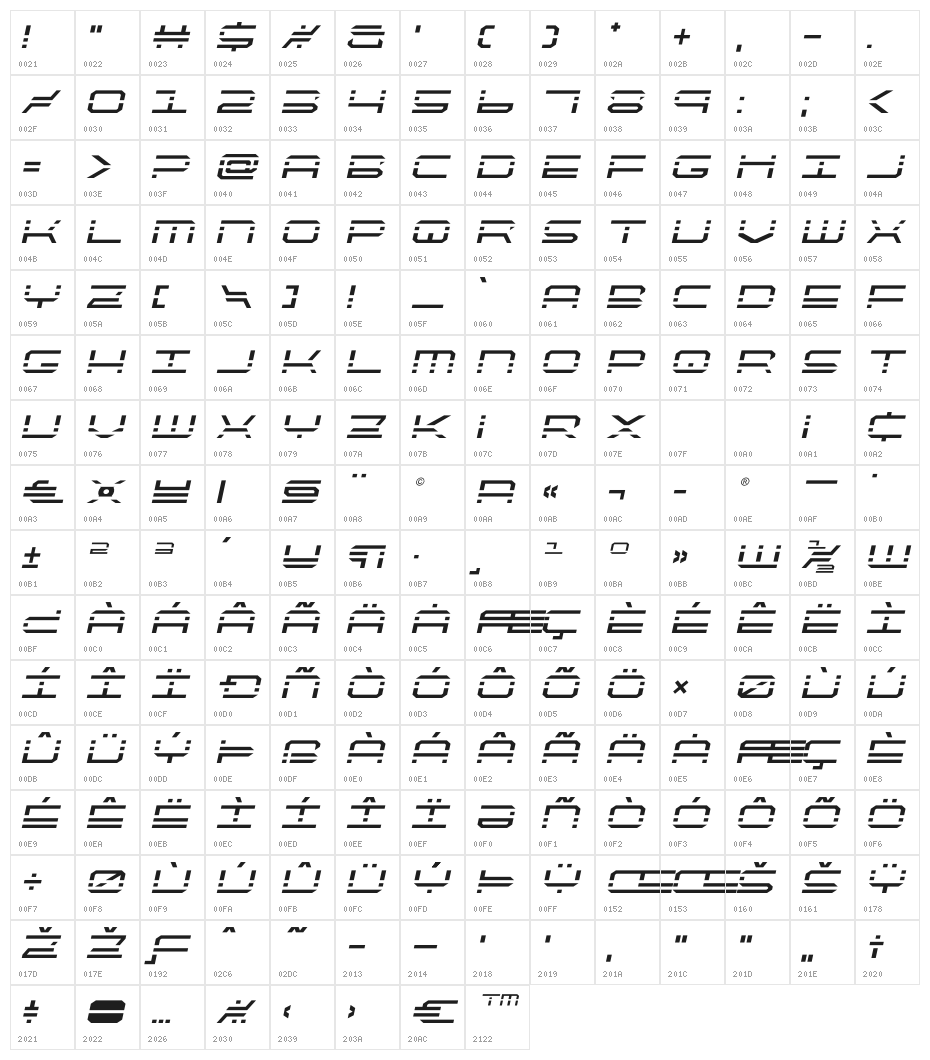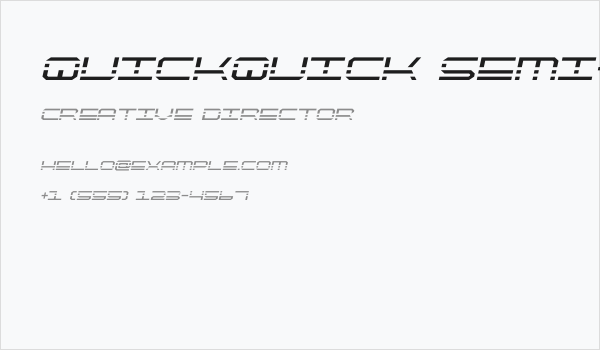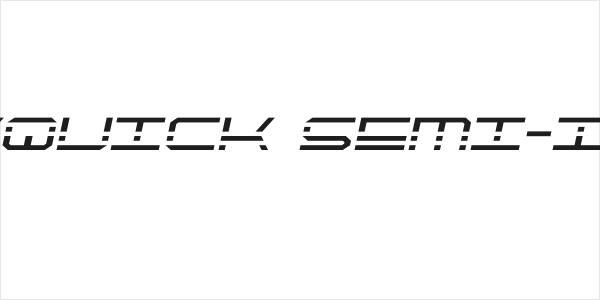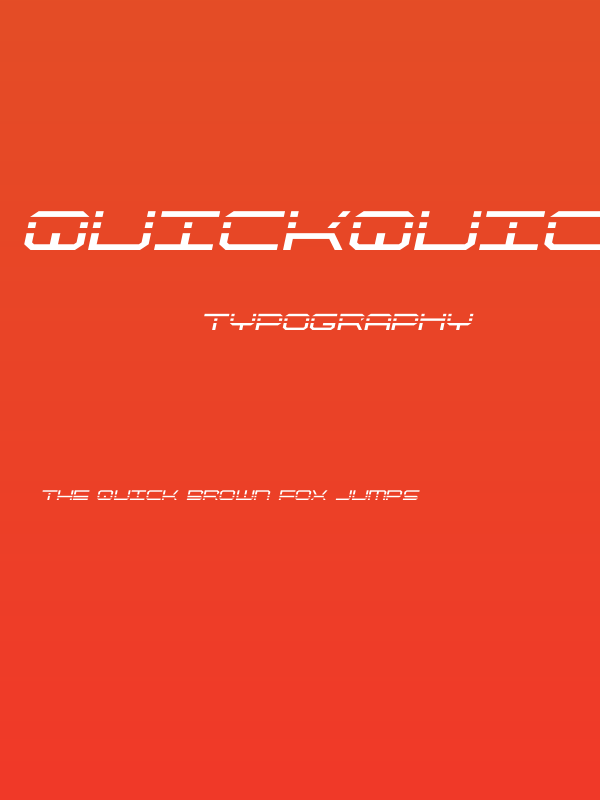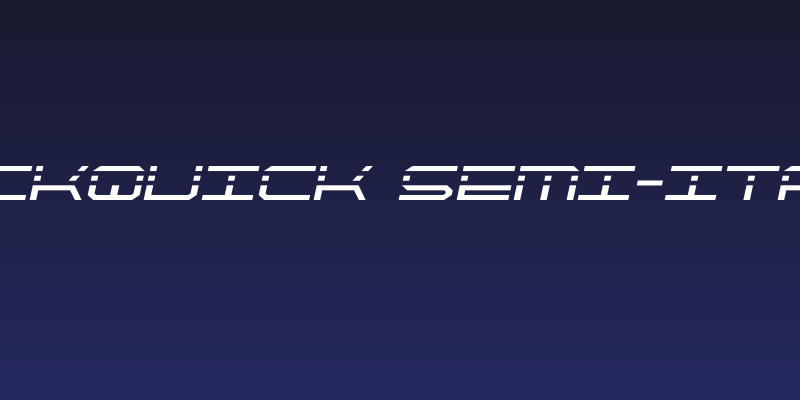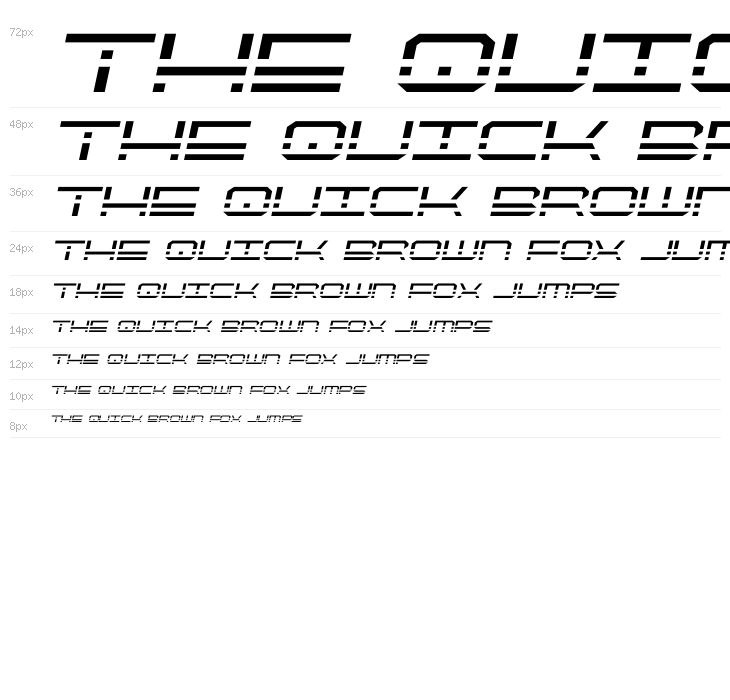
QuickQuick Semi-Italic Font
QuickQuick Semi-Italic Description
This font features a futuristic and dynamic design with a semi-italic slant, giving it a sense of motion and speed. The characters are constructed with a series of segmented lines, creating a digital or technological aesthetic. The uppercase and lowercase letters maintain a consistent style, with sharp angles and a geometric structure. The numerals and special characters follow the same segmented pattern, ensuring uniformity across all glyphs. This font is ideal for projects that require a modern and edgy look, such as tech branding, gaming interfaces, or sci-fi themed designs.
| Use Case | Logos, Headlines, Digital interfaces |
| Proposed Projects | Tech branding, gaming interfaces, sci-fi themed designs, digital art. |